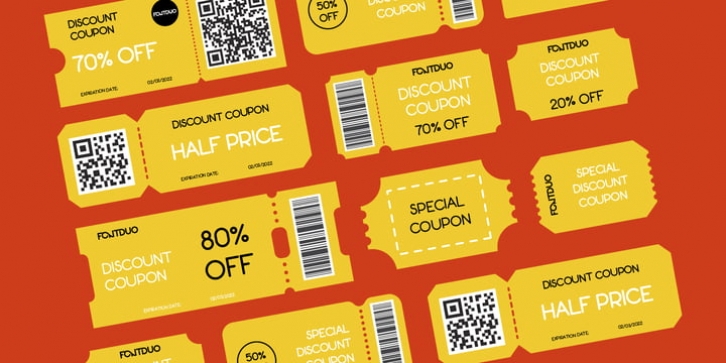
Adorbs FD Font Family was published by FontDuo. Adorbs FD contains 1 styles and family package options.
Adorbs FD is a cute, adorable, rounded sans serif font. No matter the topic, this font will be an incredible asset to your fonts' library, as it has the potential to elevate any creation.
Adorbs FD supports multiple Latin languages. This includes English, French, Irish, Italian, Portuguese, and Spanish.